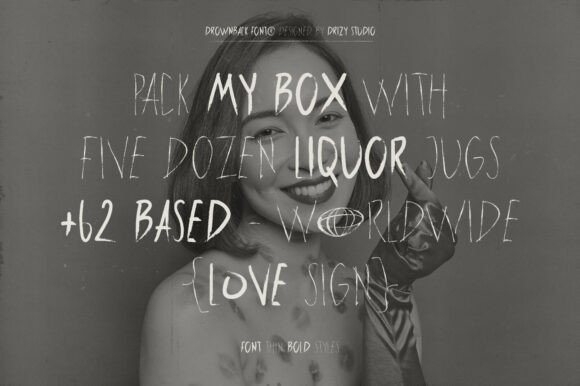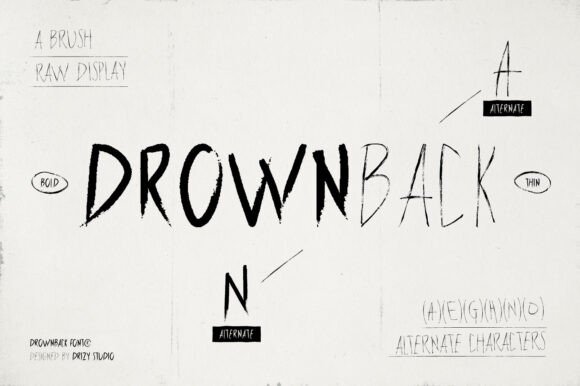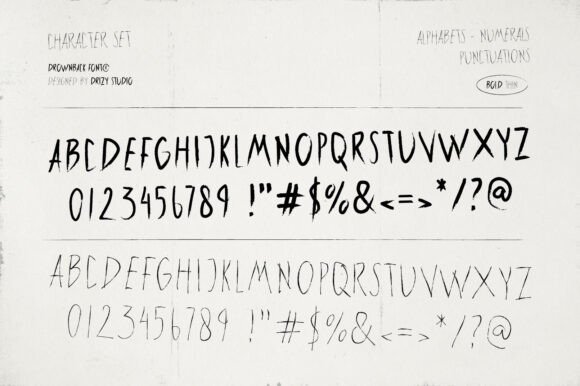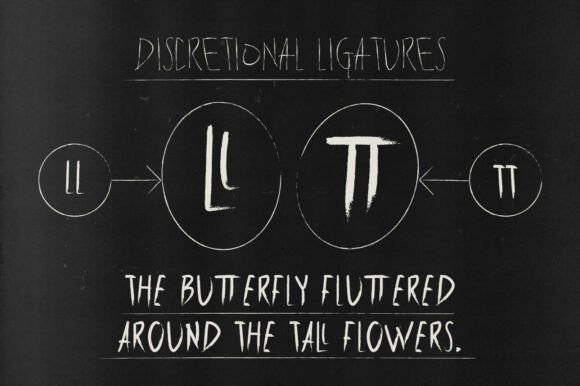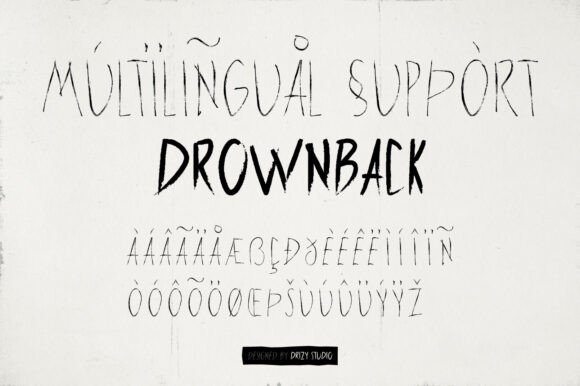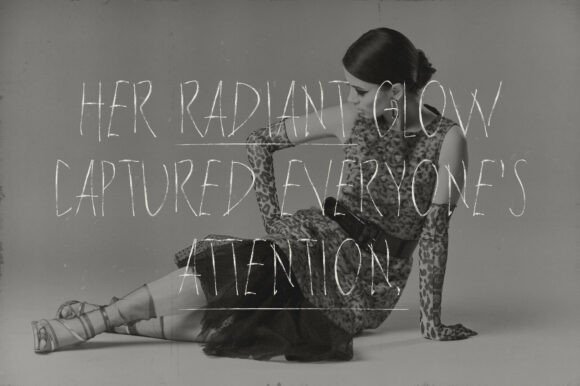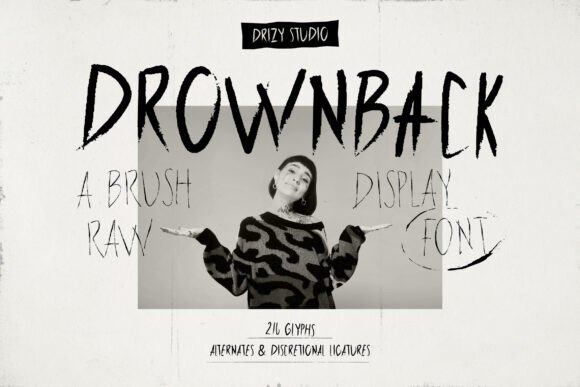
Drownback Font: Unleashing Emotional Intensity with a Raw and Captivating Brush Display Font
In the realm of typography, few fonts manage to evoke the intensity of emotion and rawness that Drownback, a brush display font, effortlessly achieves. Designed to capture the essence of the Emo Romance aesthetic, Drownback is not just a font but a statement piece for any design it adorns. With its bold, jagged strokes and expressive hand-painted style, this font is a perfect blend of passion, rebellion, and vulnerability.
The Essence of Drownback
Drownback stands out with its unique characteristics that set it apart from more conventional fonts. Its bold and jagged strokes are reminiscent of raw, unbridled emotion, bringing to mind the intensity and passion of the Emo and Romance genres. The hand-painted style of Drownback adds a layer of authenticity and human touch, making each letter and word feel like it was crafted with care and emotion. This font isn’t just about conveying a message; it’s about evoking a feeling.
Perfect for Dramatic Designs
Given its distinctive style, Drownback is particularly suited for designs that demand a dramatic flair. Album covers in the music industry, especially within the Emo, Rock, and Indie genres, can greatly benefit from the emotional intensity Drownback brings. Event posters for concerts, art exhibitions, and literary readings will also find a perfect match in this font, as it promises to draw attention and evoke curiosity. Moreover, zines and other DIY (Do It Yourself) publications, which thrive on unique aesthetics and personal expressions, will find Drownback to be an invaluable asset.
Crafting with Drownback
For designers and crafters, Drownback offers a versatile tool that can elevate a project from mundane to extraordinary. The key to effectively using Drownback lies in understanding its strengths and limitations. Here are a few tips for crafting with Drownback:
- Emphasize Key Messages: Use Drownback for headlines or key phrases where you want to evoke a strong emotional response. Its boldness and uniqueness ensure that your message stands out.
- Combine with Simplicity: While Drownback is powerful, it can also be overwhelming if overused. Pair it with simpler fonts for body text or supporting information to create visual balance.
- Experiment with Colors: The raw emotion of Drownback can be further emphasized with bold and contrasting color schemes. Experiment with different colors to find the perfect match for your design’s mood.
The Beauty in Chaos
Drownback embodies the concept of finding beauty in chaos. Its irregular strokes and raw appearance might seem chaotic at first glance, but they come together to create a harmonious and impactful visual experience. This paradox is what makes Drownback so compelling. It’s not just a font; it’s a form of expression that captures the complexity of human emotions and experiences.
Drownback is more than just a brush display font; it’s a tool for expression, a means to convey deep emotions and connect with the audience on a more intimate level. Whether you’re a designer looking to create impactful works or a crafter seeking to add a personal touch to your projects, Drownback offers a unique avenue to explore. With its bold, jagged strokes and expressive hand-painted style, Drownback is poised to leave a mark in the world of design, making your words speak louder and wear their heart on their sleeve.
Embrace the raw emotion and dramatic flair of Drownback. Let it be the voice that speaks through your designs, adding a layer of passion, rebellion, and vulnerability that’s hard to ignore. Dive into the world of Drownback, and discover how this captivating brush display font can transform your creative projects into powerful statements of emotion and artistry.